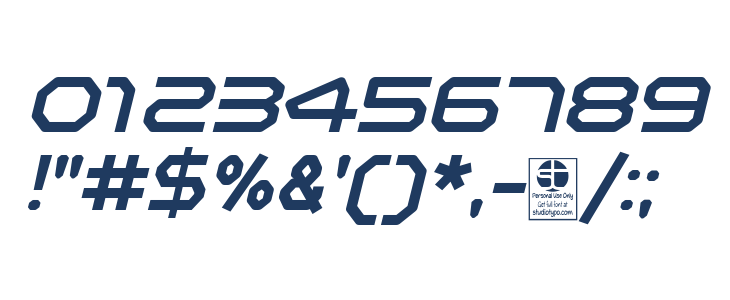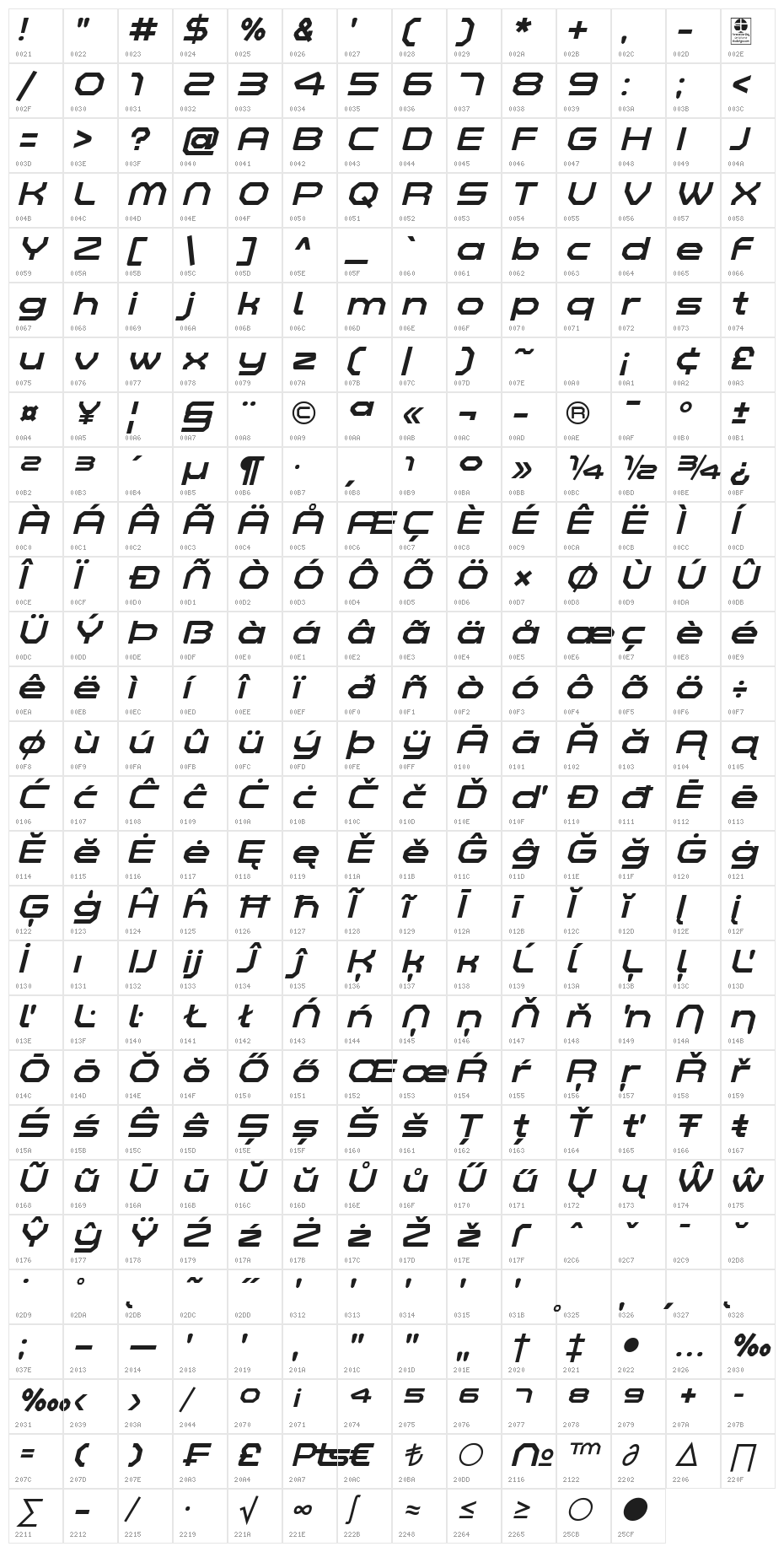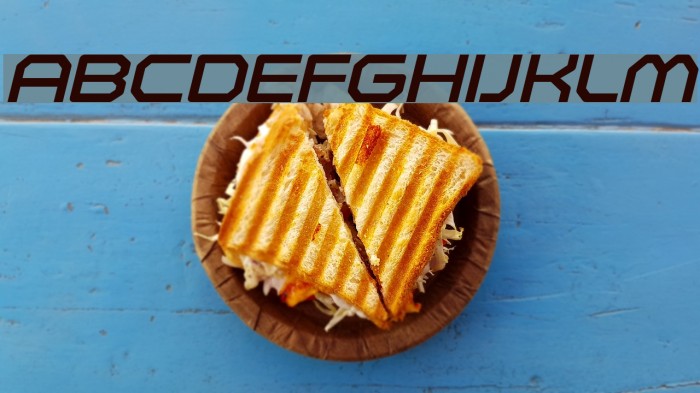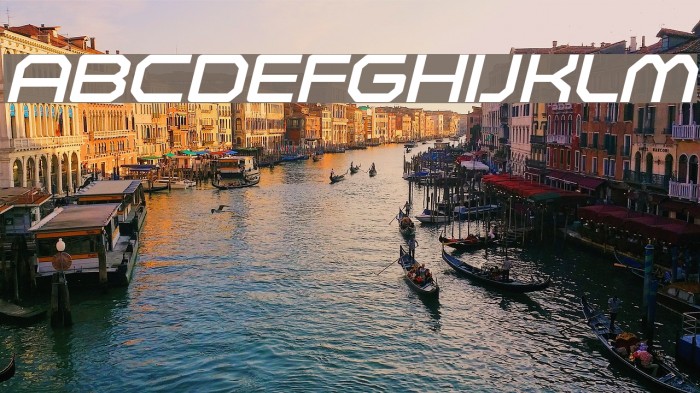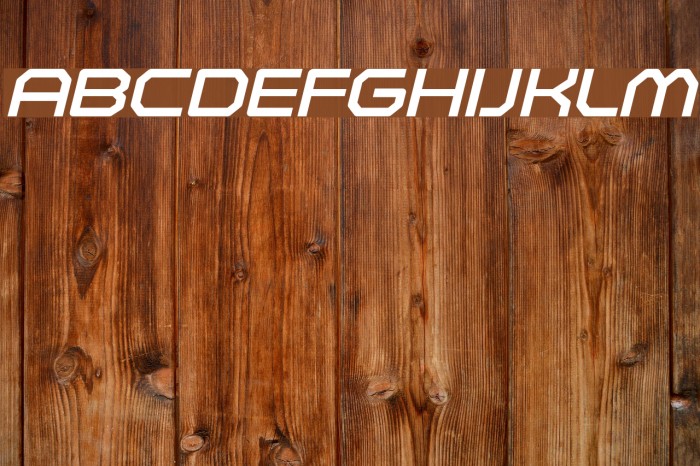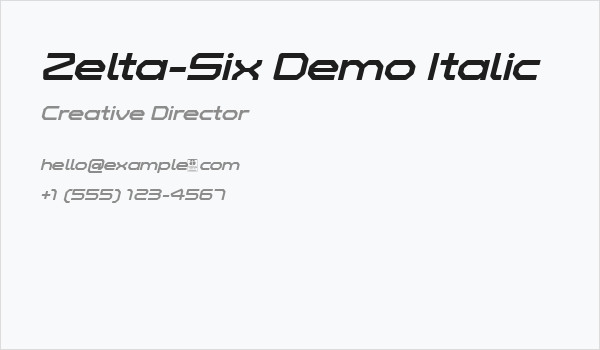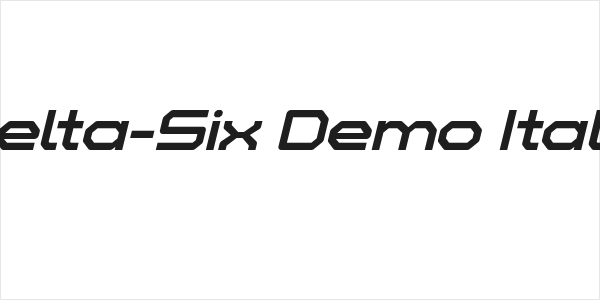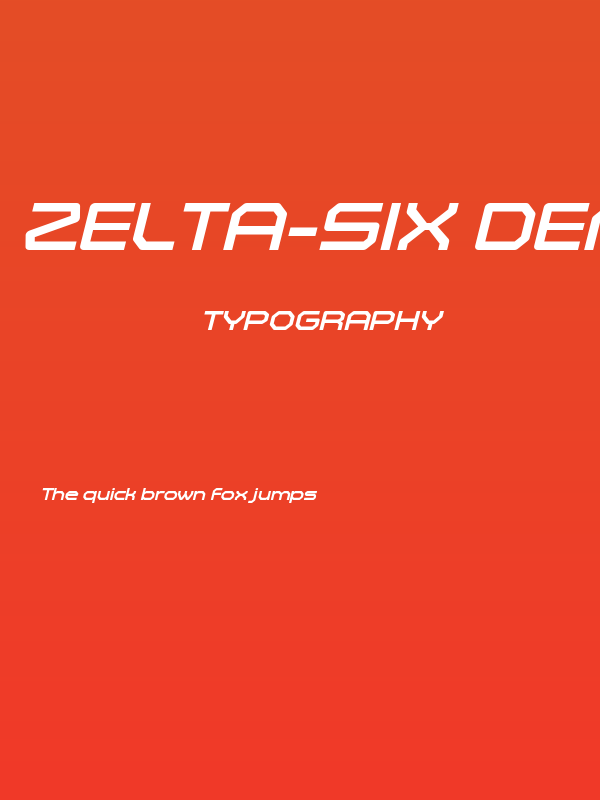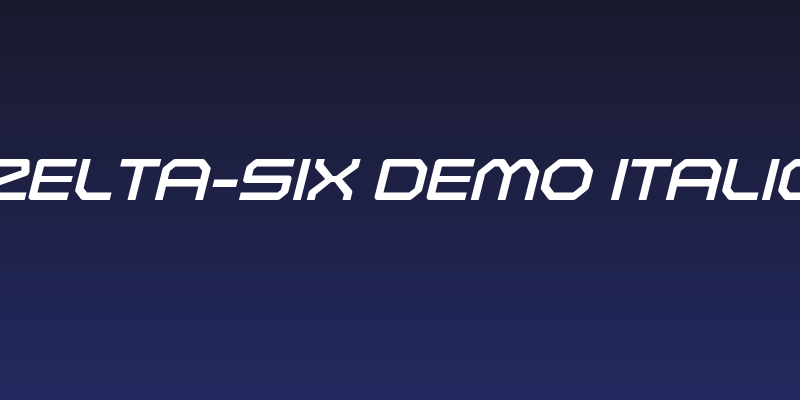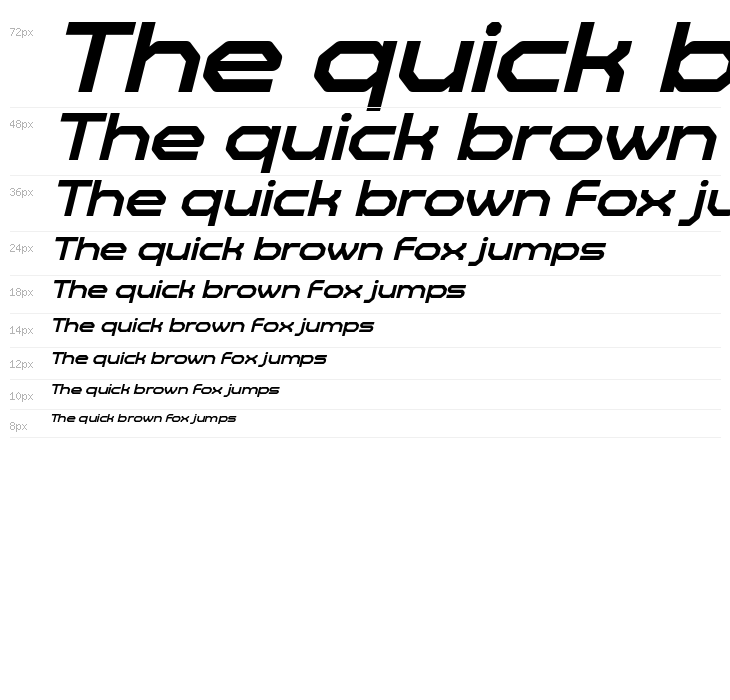
Zelta-Six Demo Italic Font
Zelta-Six Demo Italic Description
This font features a modern and sleek design with a futuristic flair. The characters are italicized, giving them a dynamic and forward-leaning appearance. The geometric shapes and sharp angles create a sense of speed and movement, making it ideal for tech-oriented projects. The uppercase and lowercase letters maintain a consistent style, with a slightly condensed width that enhances readability. The numerals are bold and distinct, ensuring clarity in various contexts. Special characters are included, maintaining the font's cohesive aesthetic.
Overall StyleFuturistic
Use CaseLogos, Headlines, Branding
Proposed ProjectsIdeal for tech branding, futuristic designs, video game interfaces, and sci-fi themed projects.